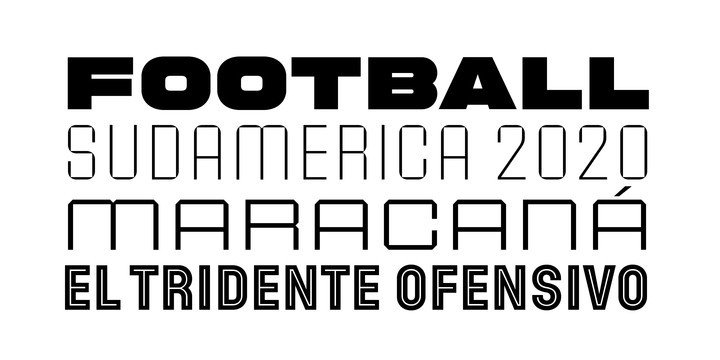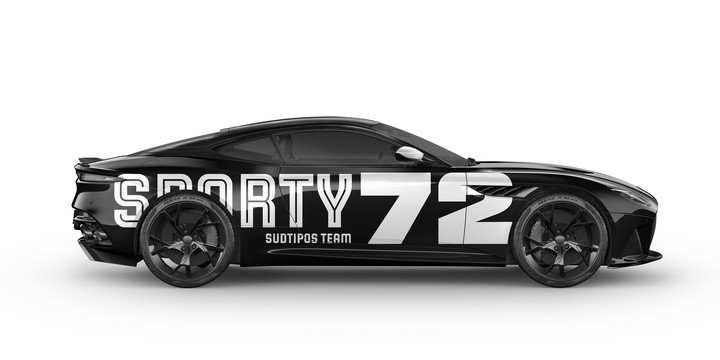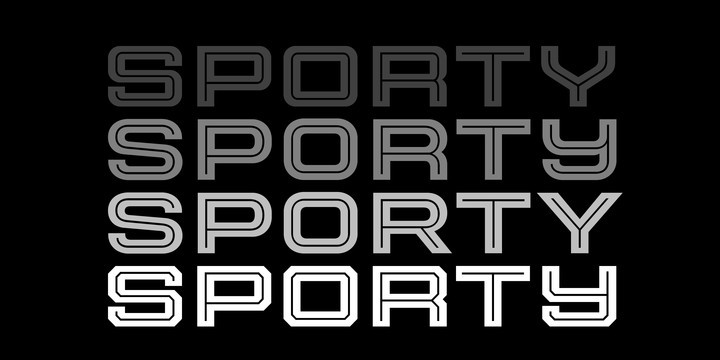
Sporty Pro Font
We love sports – like billions of fans all over the world – but in Argentina, we really love fútbol (soccer). Fútbol is part of our culture: it makes our hearts’ race and our pulses quicken, it inspires screams of joy and screams of anguish, and it has been the cause of more than a few heated conversations amongst friends. So you can imagine our delight when, in recent years, a local team’s fútbol jersey used a Sudtipos font; it got us thinking about designing a font that explicitly had sports in mind yet still had the versatility to work for other types of projects.